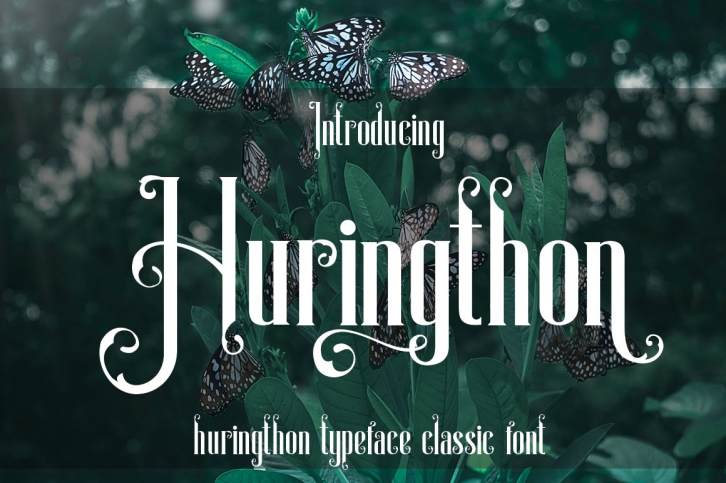
Huringthon is a great font that was designed by baldam. Imagine the amount of combinations you can create using this font! The archive is 13.58 MB and it was released on May 19, 2019. Huringthon looks beautiful on wedding invitations, greeting cards, logos, posters, labels, t-shirt designs, logos, business cards and is perfect for use in ink or watercolor works, fashion, magazines, packaging and food menus, children's books and more!